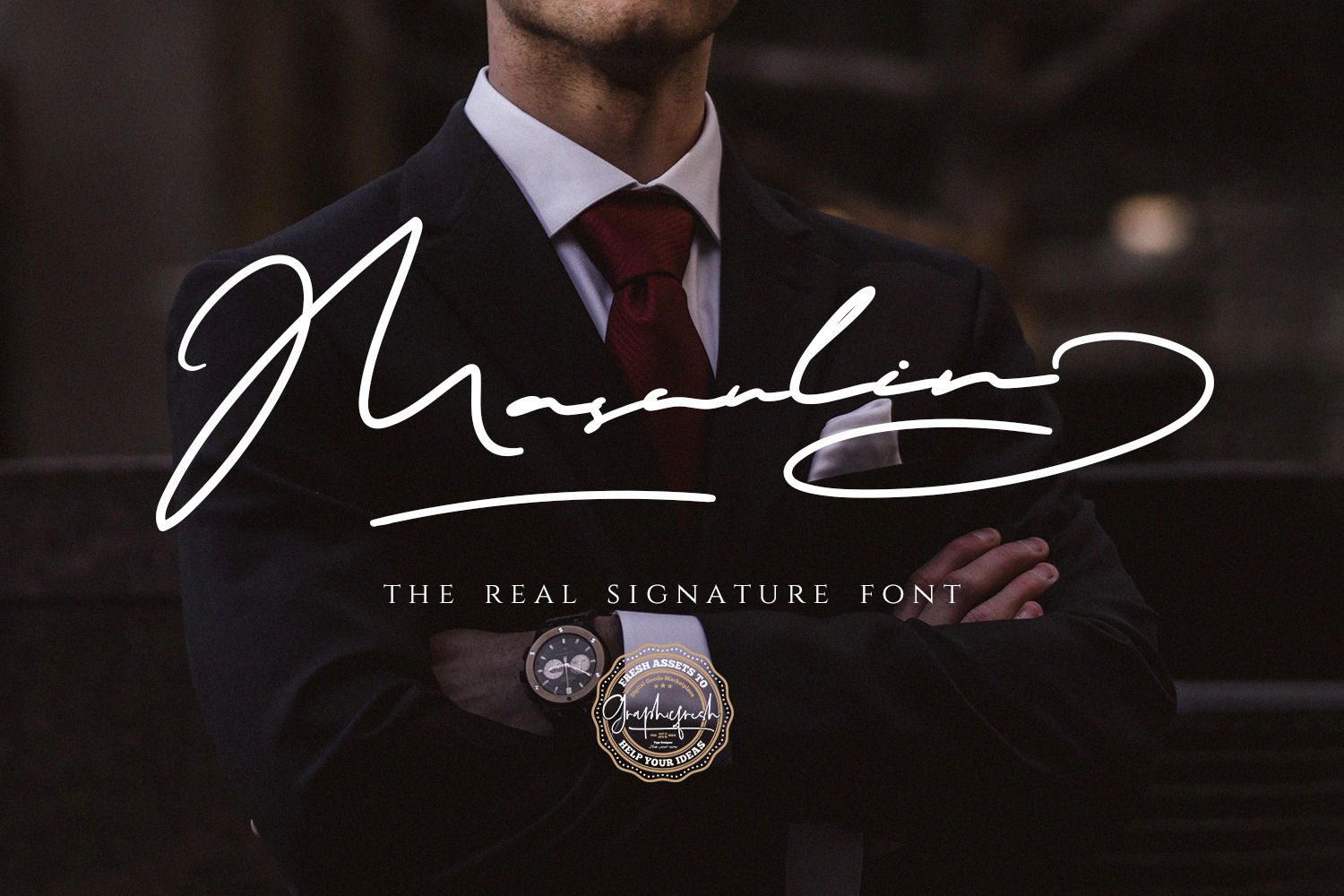
MASCULIN - The Real Signature Font
We made this font for a long time. Long, because of thinking about how to produce an original and real-looking signature font. As a result, we can make something like that.
MASCULIN | The Real Signature Font - A Clean script and unique character! it's perfect for logos, name card, magazine layouts, invitations, headers, or even large-scale artwork.